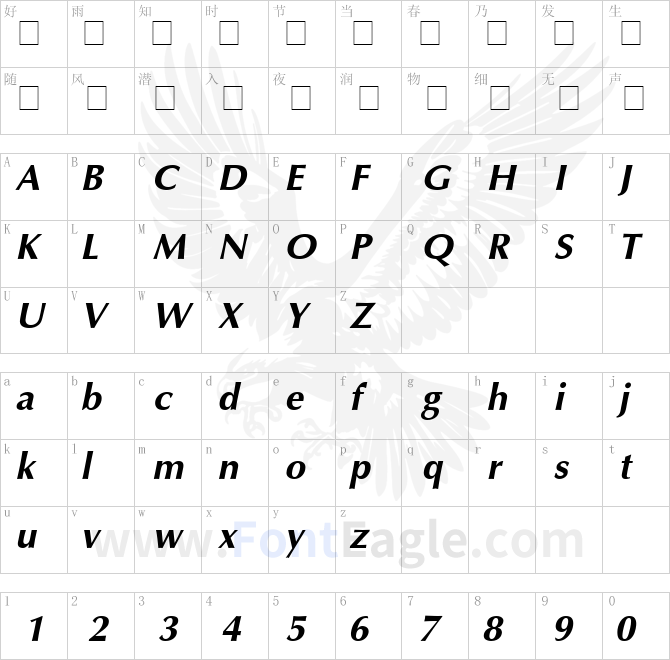
- Font name:Ottawa
Ottawa-Bold-Italic is a great font, widely used in graphic design, single-page menu design, poster design and other fields, and is deeply loved by designers.Ottawa-Bold-Italic download.